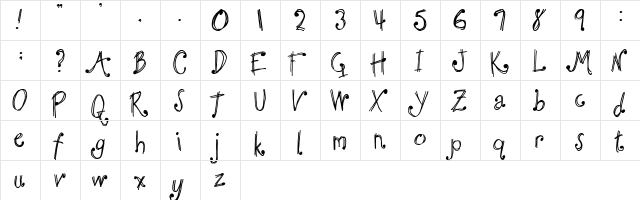
2Peas Secret Pal Regular
Design Context for 2Peas Secret Pal Typeface
2Peas Secret Pal is a composed and adaptable typeface that performs quietly and consistently across a wide range of design contexts.